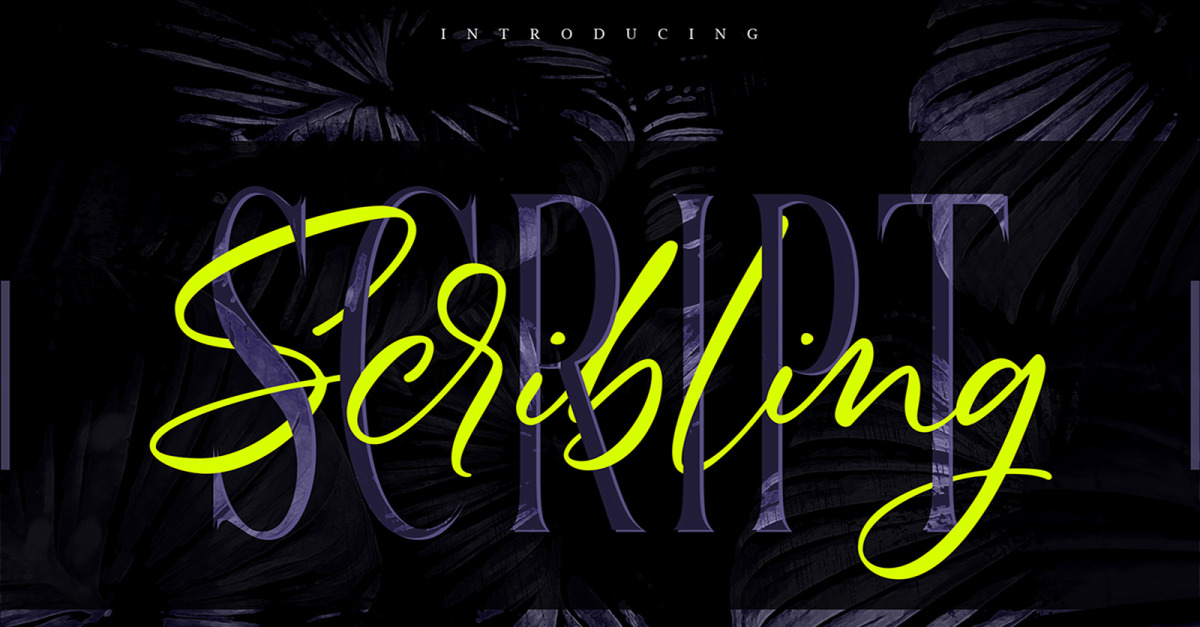
Scribbling | Uniquely Handwriting Cursive Font
**Scribbling | Uniquely Handwriting Script Font** with a calligraphy style, So beautiful on invitation like greeting cards, branding materials, business cards, quotes, posters, and more!